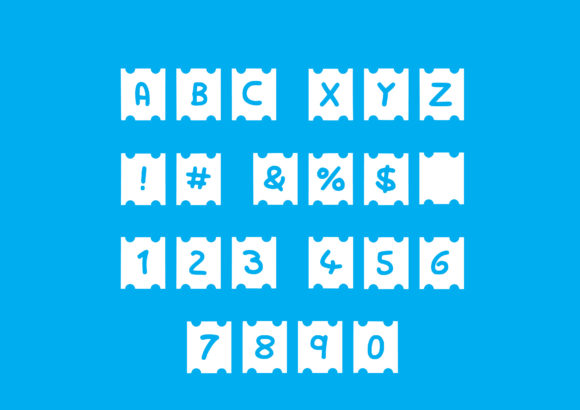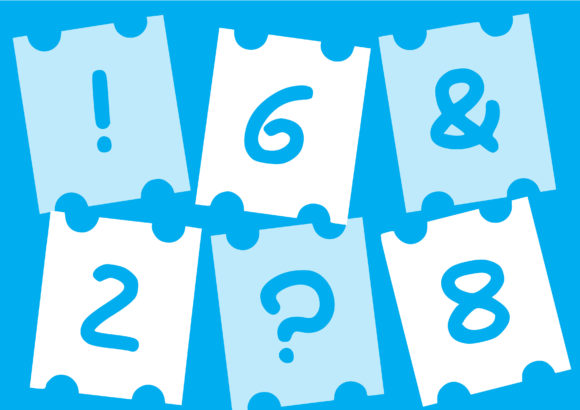
Introduction to Play Ticket Font
Remember that moment when you’re working on a creative project and you stumble upon the perfect font that elevates your entire design? It’s like a spark of inspiration that ignites your imagination and takes your project to the next level. For designers, finding that perfect font can be a game-changer, and that’s exactly what the Play Ticket Font offers.
This unique and stylish font is perfect for adding a touch of elegance and sophistication to your designs. Whether you’re working on a digital project or a physical craft, the Play Ticket Font is a valuable resource that can help you achieve the desired look and feel. With its transparent background and high-quality design, it’s a must-have for any designer looking to add a creative touch to their work.
Key Features of Play Ticket Font
- High-quality, unique font design ideal for creative projects requiring a vintage ticket style aesthetic.
- Transparent background option allows for seamless integration with different design elements, providing flexibility in creative projects.
- Optimized for high-resolution displays, ensuring crisp and clear text rendering at various resolutions.
- Font size range: 8-48 points, providing versatility for use in various design contexts, from small captions to large headlines.
- Perfect for designers seeking a high-quality, free design resource for their creative projects, including event invitations, ticket designs, and more.
Honest Review: Play Ticket Font
As a designer, I’ve worked with a plethora of fonts, but the Play Ticket Font has caught my attention recently. I downloaded it for free, and I must say, it’s a great addition to my design resource library.
What works well about this font is its versatility. ✨ It’s perfect for creative projects that require a touch of nostalgia, such as ticket designs, travel brochures, or even advertisements for vintage-themed events. The font’s unique style and high quality make it a standout choice for designers looking to add some visual interest to their work.
Here are some of its key features:
- Transparent background option for seamless integration
- High-quality design that’s perfect for print and digital media
However, ⚠️ I do find that the font can be a bit overwhelming when used in large blocks of text. It’s best suited for headings, titles, and short phrases.
Overall, I’m impressed with the Play Ticket Font. It’s a great addition to any designer’s library, and I would highly recommend it for creative projects that require a touch of elegance and sophistication.
Play Ticket Font
To get the most out of Play Ticket Font, try using it on a transparent background to give your design a clean and modern look. You can also use it in combination with other design elements to create a unique and creative project.
Play Ticket Font is commonly used in event invitations, ticket designs, and promotional materials. Its unique and playful style makes it perfect for creative projects that require a touch of excitement and energy.
Q: Can I customize the Play Ticket Font to fit my specific design needs?
The Play Ticket Font is a pre-designed font, but you can experiment with different font sizes, colors, and styles to create a unique look for your project. Additionally, you can use font editing software to customize the font, such as modifying the letter spacing or adding custom glyphs. However, be aware that modifying the font may affect its compatibility with certain design applications.